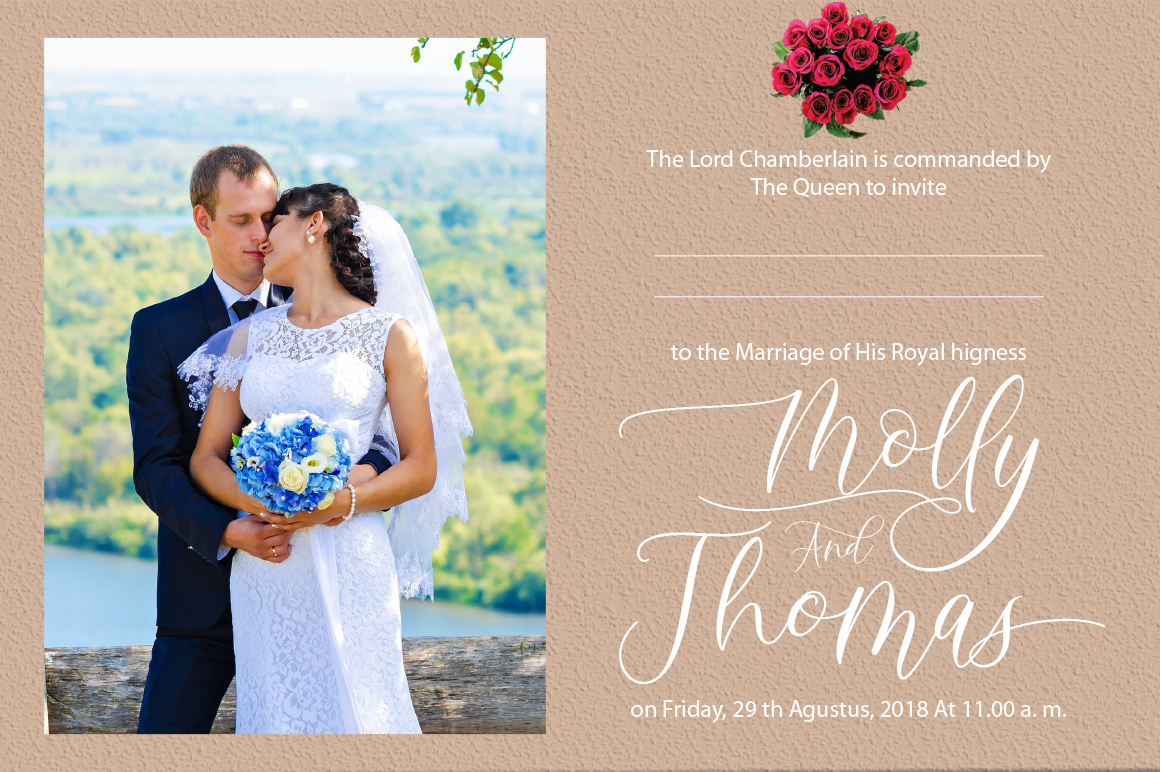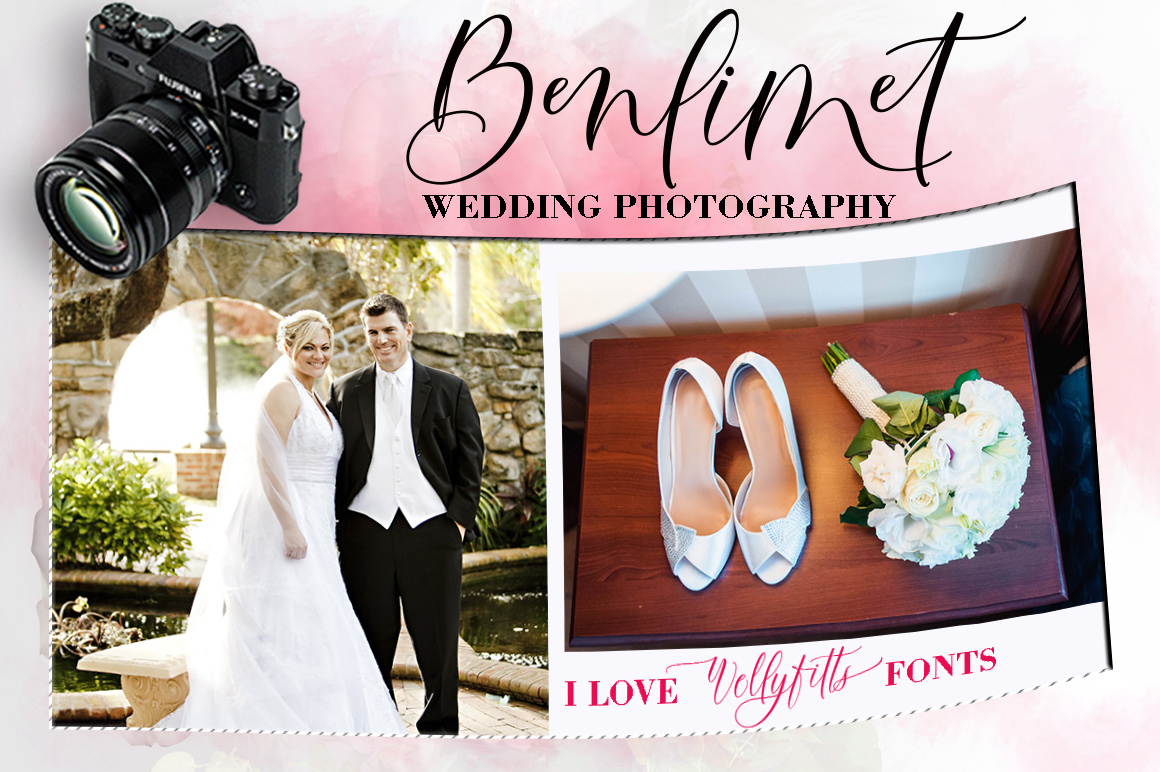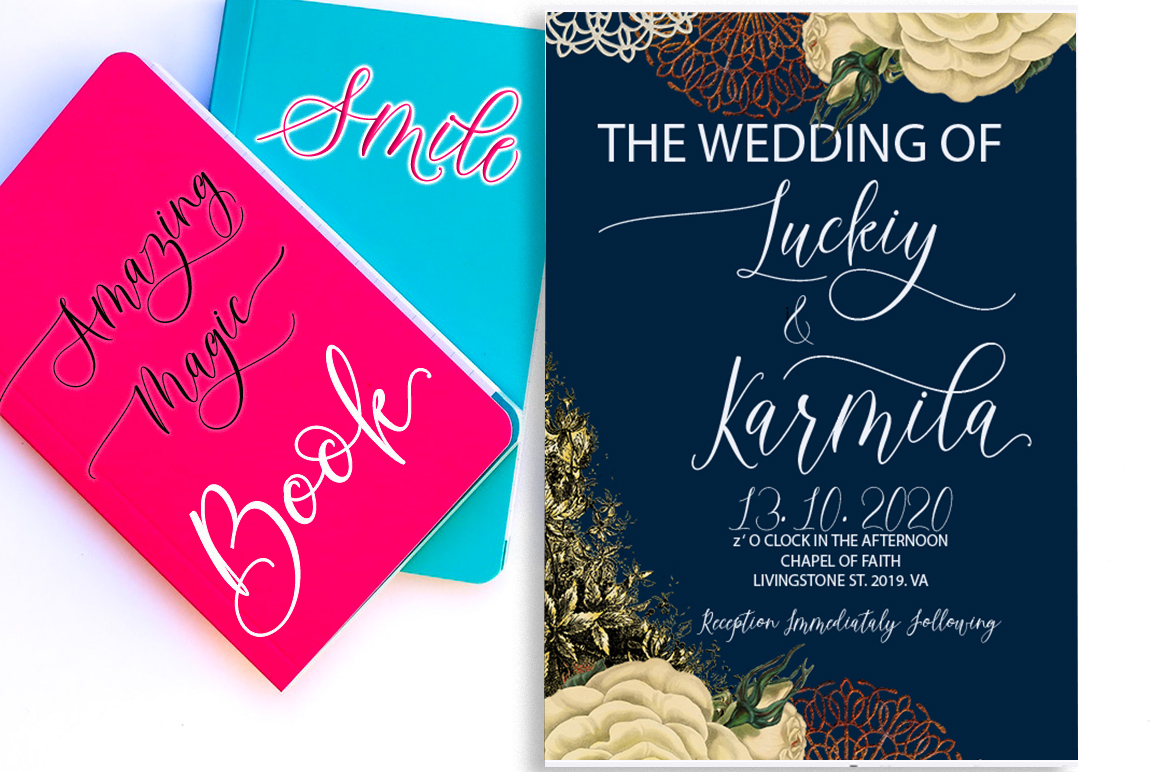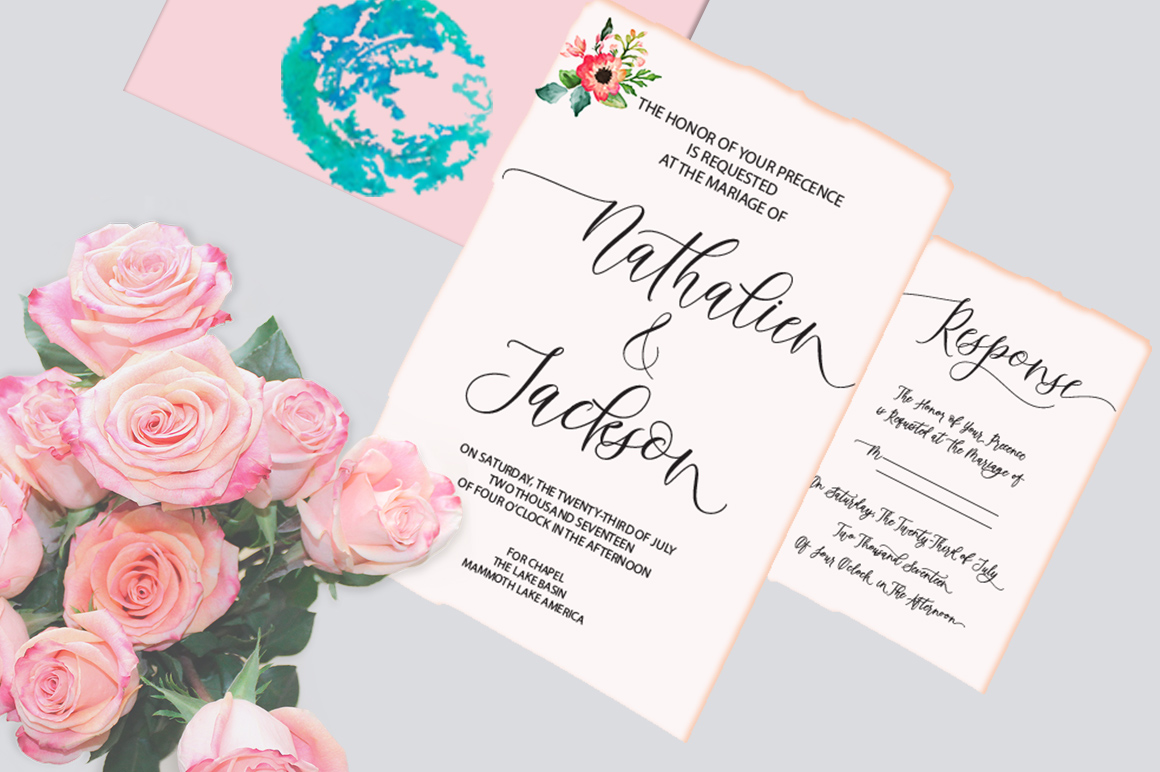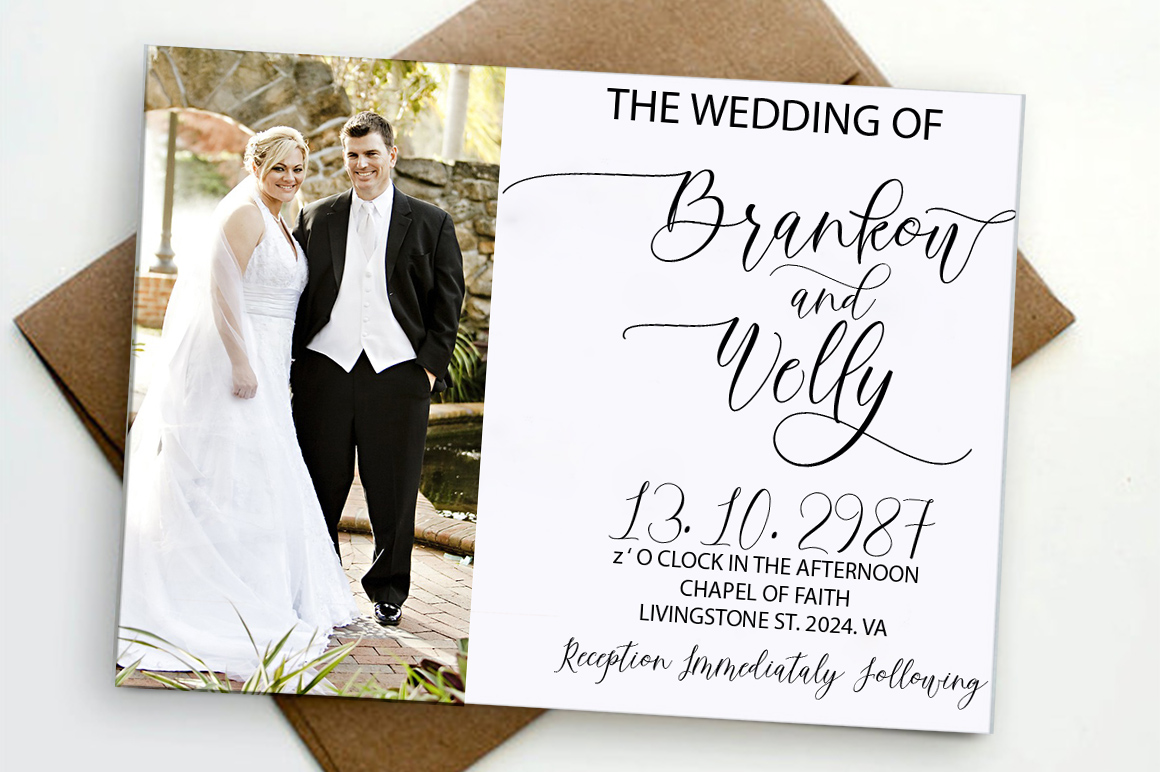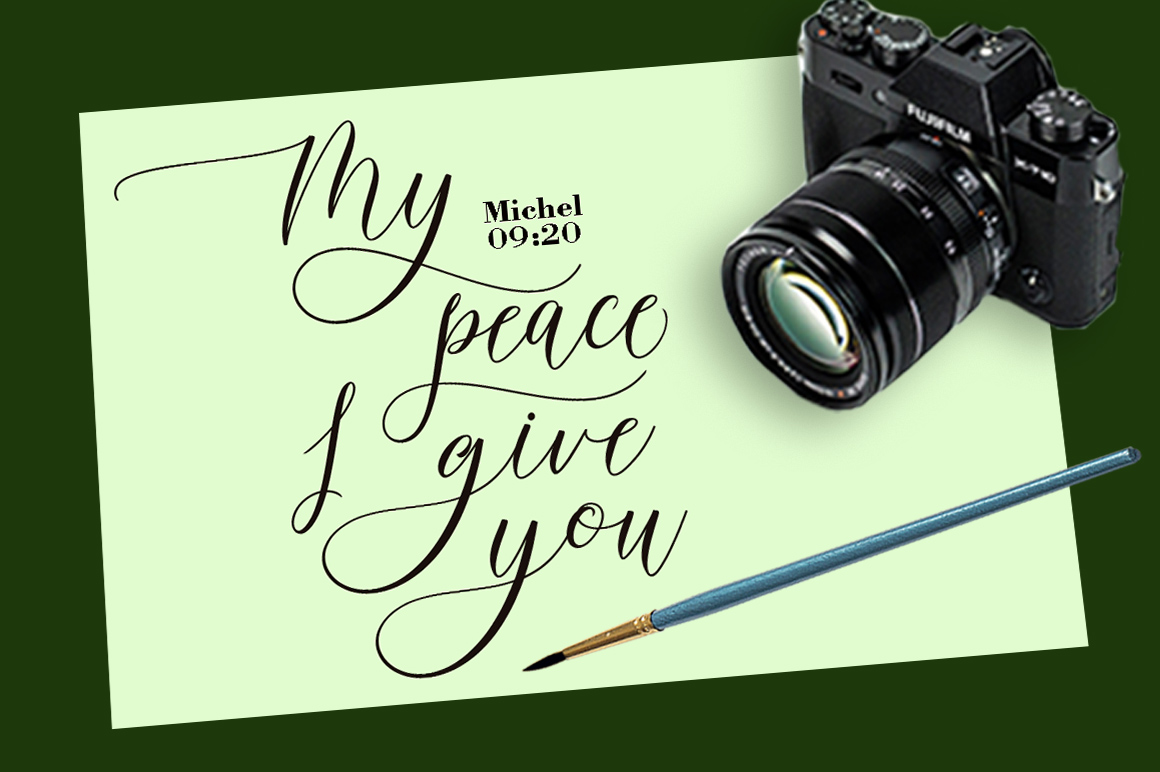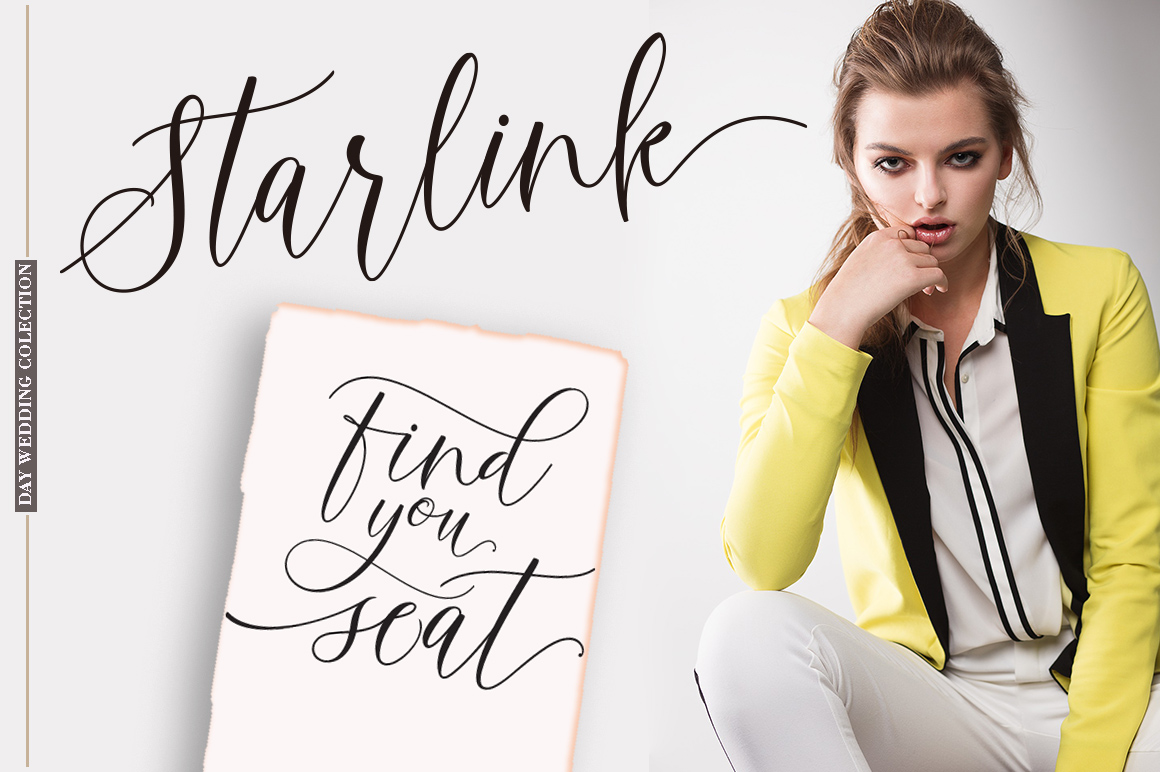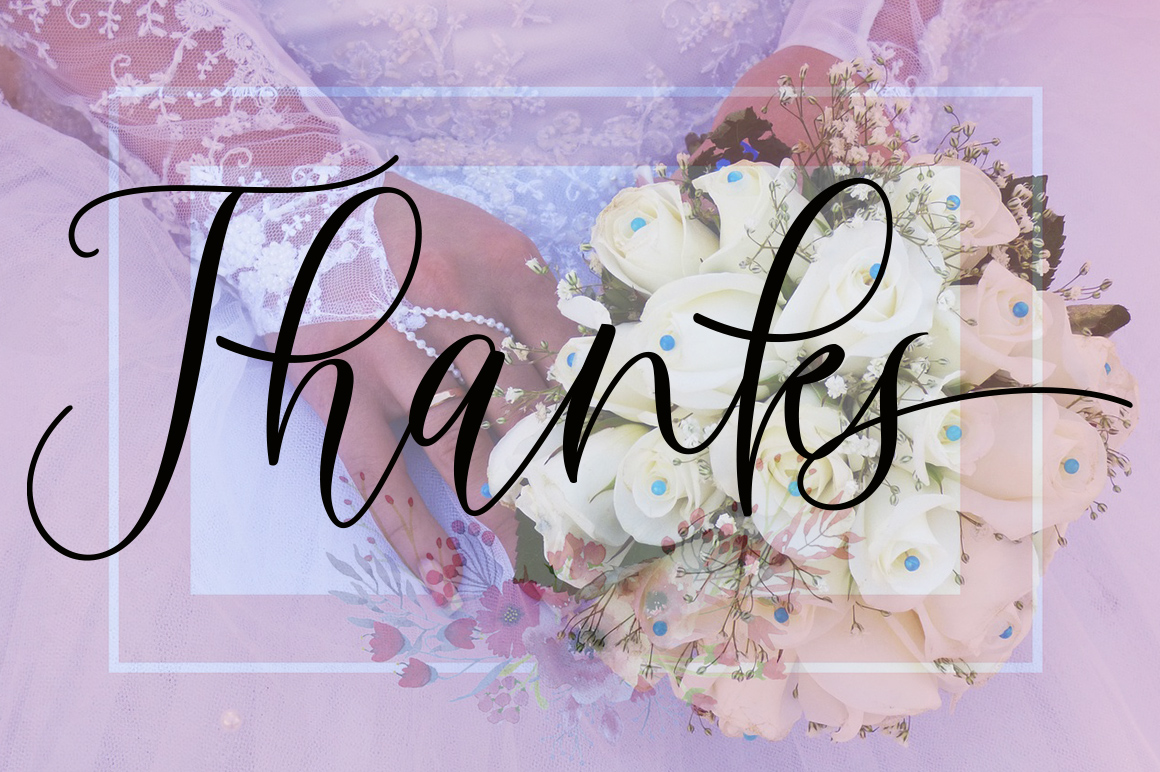
Wellyfitts Font
About Wellyfitts Font
Wellyfitts is an elegant new font, crafted within a calligraphy style. This font offers a touch of elegance and modernity, and supports great design. This font excels in print format.